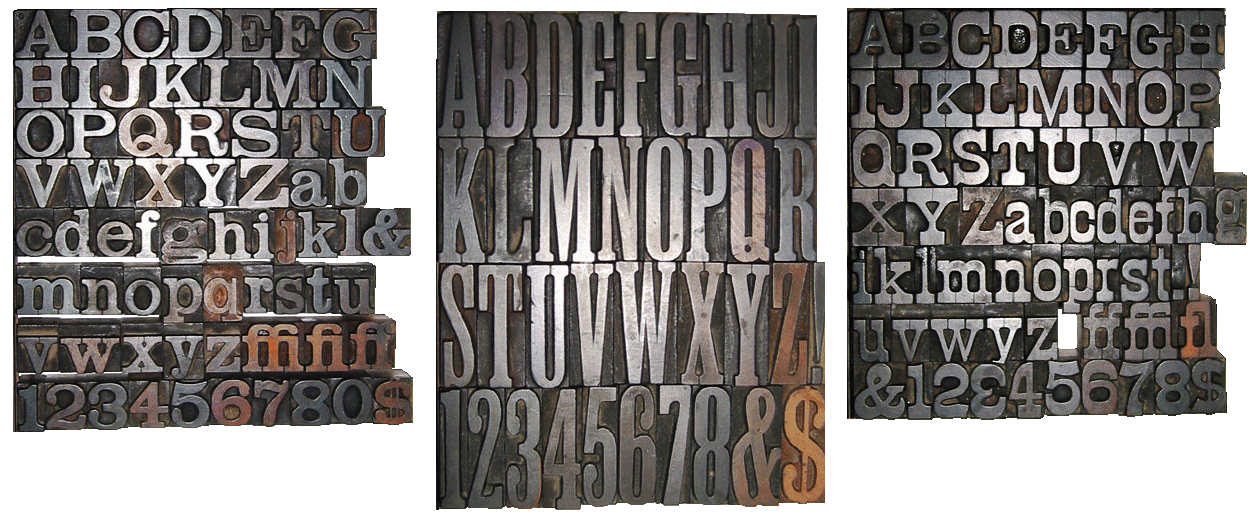
Best Wood Type Typefaces . All of the wood type. Rustic fonts have typefaces with old, earthy, and rural. Are you looking for the best rustic fonts for rugged and naturally beautiful designs? Hamilton wood type collection, established in 2012, is a joint venture between p22 type foundry and the hamilton wood type & printing museum. Worry no more, as you’ve come to the right place. Wood type revival is discovering and preserving historic wood type, faithfully converting it into digital fonts for modern designers. Learn about the history and features of each font, such as anodyne, hawksmoor, stampact, leking and more.
Are you looking for the best rustic fonts for rugged and naturally beautiful designs? All of the wood type. Learn about the history and features of each font, such as anodyne, hawksmoor, stampact, leking and more. Rustic fonts have typefaces with old, earthy, and rural. Worry no more, as you’ve come to the right place. Hamilton wood type collection, established in 2012, is a joint venture between p22 type foundry and the hamilton wood type & printing museum. Wood type revival is discovering and preserving historic wood type, faithfully converting it into digital fonts for modern designers.
Best Wood Type Typefaces Wood type revival is discovering and preserving historic wood type, faithfully converting it into digital fonts for modern designers. All of the wood type. Are you looking for the best rustic fonts for rugged and naturally beautiful designs? Learn about the history and features of each font, such as anodyne, hawksmoor, stampact, leking and more. Rustic fonts have typefaces with old, earthy, and rural. Hamilton wood type collection, established in 2012, is a joint venture between p22 type foundry and the hamilton wood type & printing museum. Worry no more, as you’ve come to the right place. Wood type revival is discovering and preserving historic wood type, faithfully converting it into digital fonts for modern designers.
MyFonts Wood cut typefaces Best Wood Type Typefaces Rustic fonts have typefaces with old, earthy, and rural. Hamilton wood type collection, established in 2012, is a joint venture between p22 type foundry and the hamilton wood type & printing museum. Wood type revival is discovering and preserving historic wood type, faithfully converting it into digital fonts for modern designers. Learn about the history and features of each font,. Best Wood Type Typefaces.
MyFonts Wood type typefaces Best Wood Type Typefaces All of the wood type. Are you looking for the best rustic fonts for rugged and naturally beautiful designs? Hamilton wood type collection, established in 2012, is a joint venture between p22 type foundry and the hamilton wood type & printing museum. Wood type revival is discovering and preserving historic wood type, faithfully converting it into digital fonts for modern. Best Wood Type Typefaces.
Wood Type Typefaces (read from top, left to right) Ponder… Flickr Best Wood Type Typefaces All of the wood type. Worry no more, as you’ve come to the right place. Are you looking for the best rustic fonts for rugged and naturally beautiful designs? Rustic fonts have typefaces with old, earthy, and rural. Wood type revival is discovering and preserving historic wood type, faithfully converting it into digital fonts for modern designers. Hamilton wood type. Best Wood Type Typefaces.
Typefaces at Deep Wood Best Wood Type Typefaces Are you looking for the best rustic fonts for rugged and naturally beautiful designs? Rustic fonts have typefaces with old, earthy, and rural. Learn about the history and features of each font, such as anodyne, hawksmoor, stampact, leking and more. All of the wood type. Hamilton wood type collection, established in 2012, is a joint venture between p22 type foundry. Best Wood Type Typefaces.
Choosing the Right Wood Type for Your Project! Albany Woodworks Best Wood Type Typefaces Learn about the history and features of each font, such as anodyne, hawksmoor, stampact, leking and more. Rustic fonts have typefaces with old, earthy, and rural. Wood type revival is discovering and preserving historic wood type, faithfully converting it into digital fonts for modern designers. All of the wood type. Hamilton wood type collection, established in 2012, is a joint. Best Wood Type Typefaces.
Wood Type Types of wood, Typeface design, Block lettering Best Wood Type Typefaces All of the wood type. Worry no more, as you’ve come to the right place. Wood type revival is discovering and preserving historic wood type, faithfully converting it into digital fonts for modern designers. Rustic fonts have typefaces with old, earthy, and rural. Hamilton wood type collection, established in 2012, is a joint venture between p22 type foundry and the. Best Wood Type Typefaces.